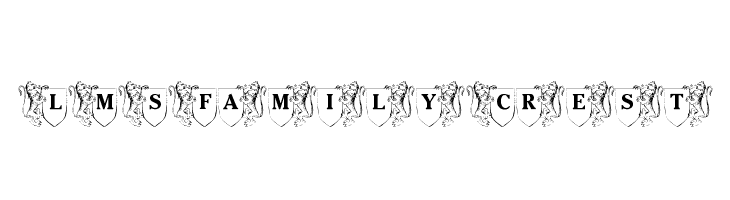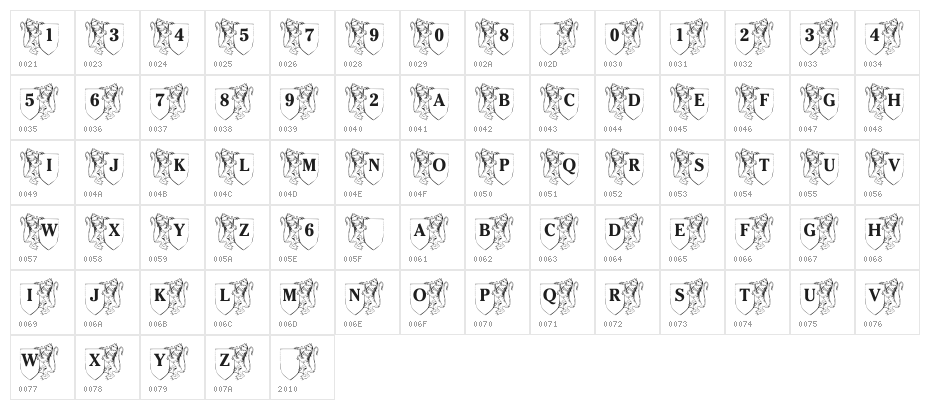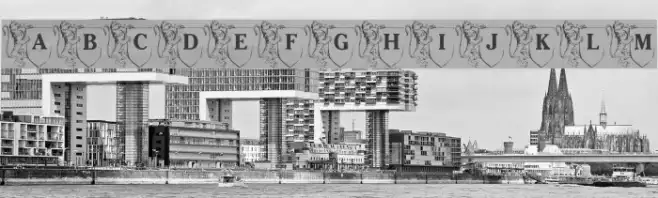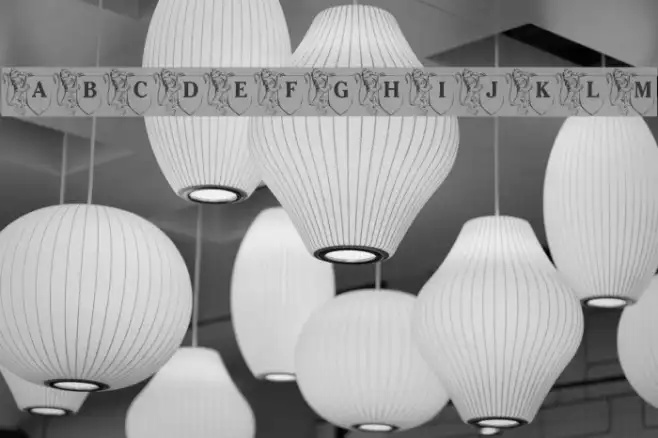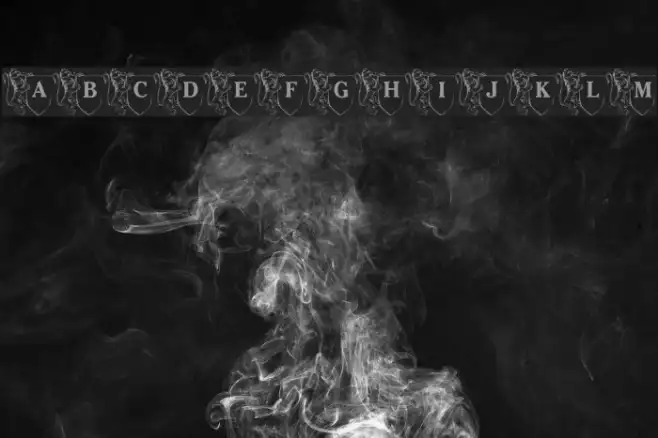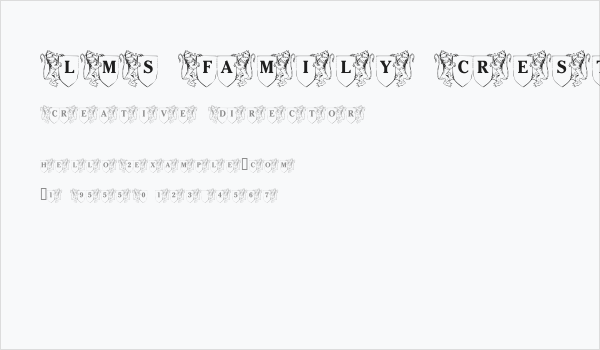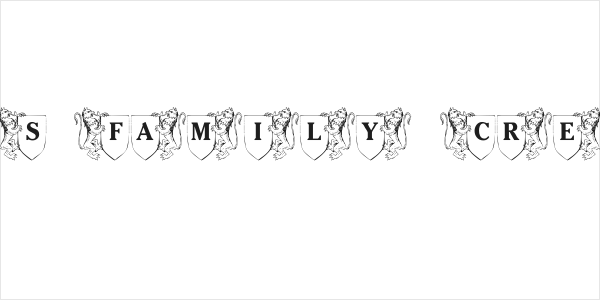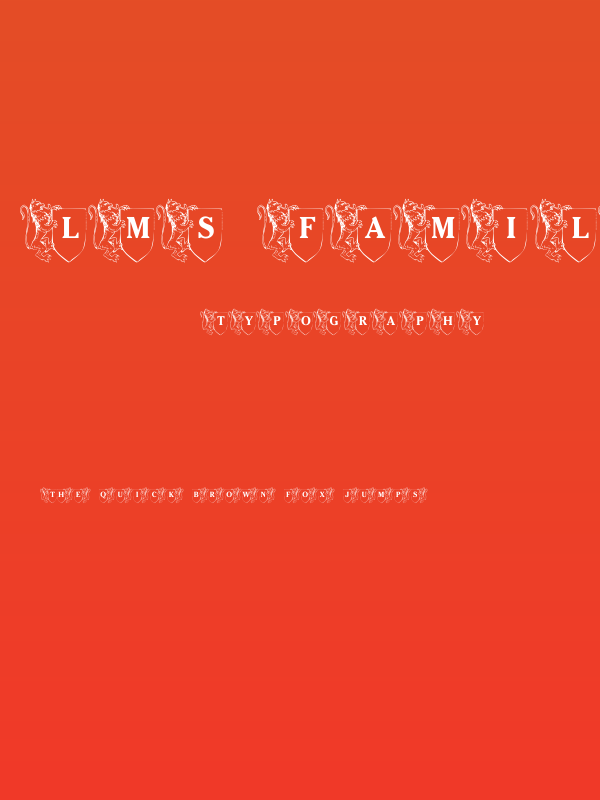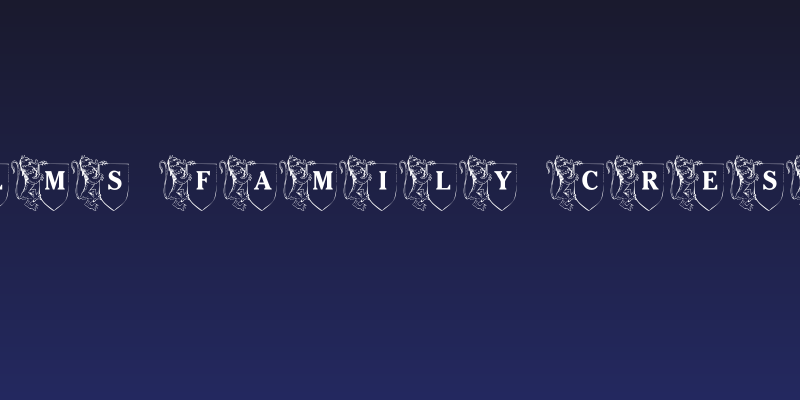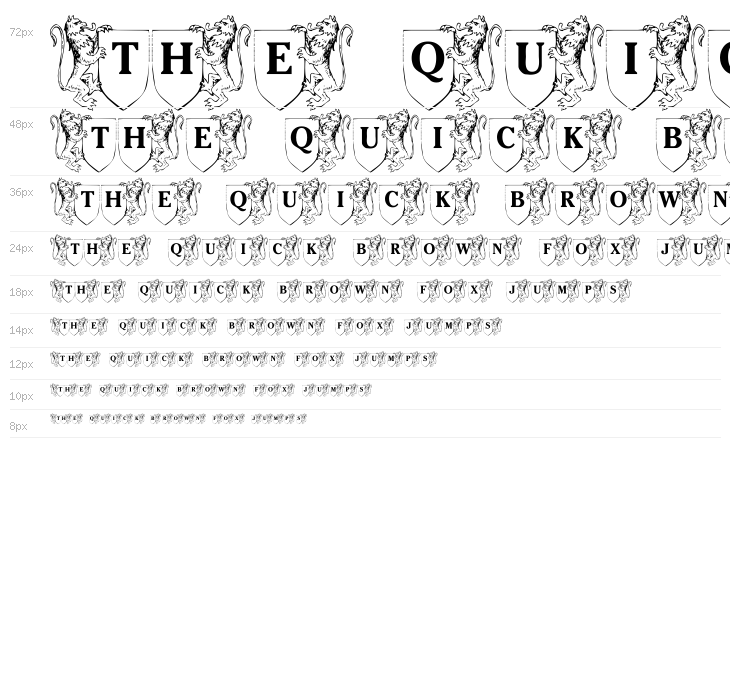
LMS Family Crest Font
LMS Family Crest Description
This font is a decorative and ornate typeface that features each character enclosed within a heraldic shield adorned with intricate designs. The uppercase letters, lowercase letters, numbers, and special characters are all presented in a consistent style that evokes a sense of tradition and elegance. The characters are bold and well-defined, making them stand out against the detailed background. This font is ideal for projects that require a touch of historical or regal flair, such as invitations, certificates, or themed branding.
| Proposed Projects | Ideal for invitations, certificates, themed branding, or any project requiring a historical or regal touch. |